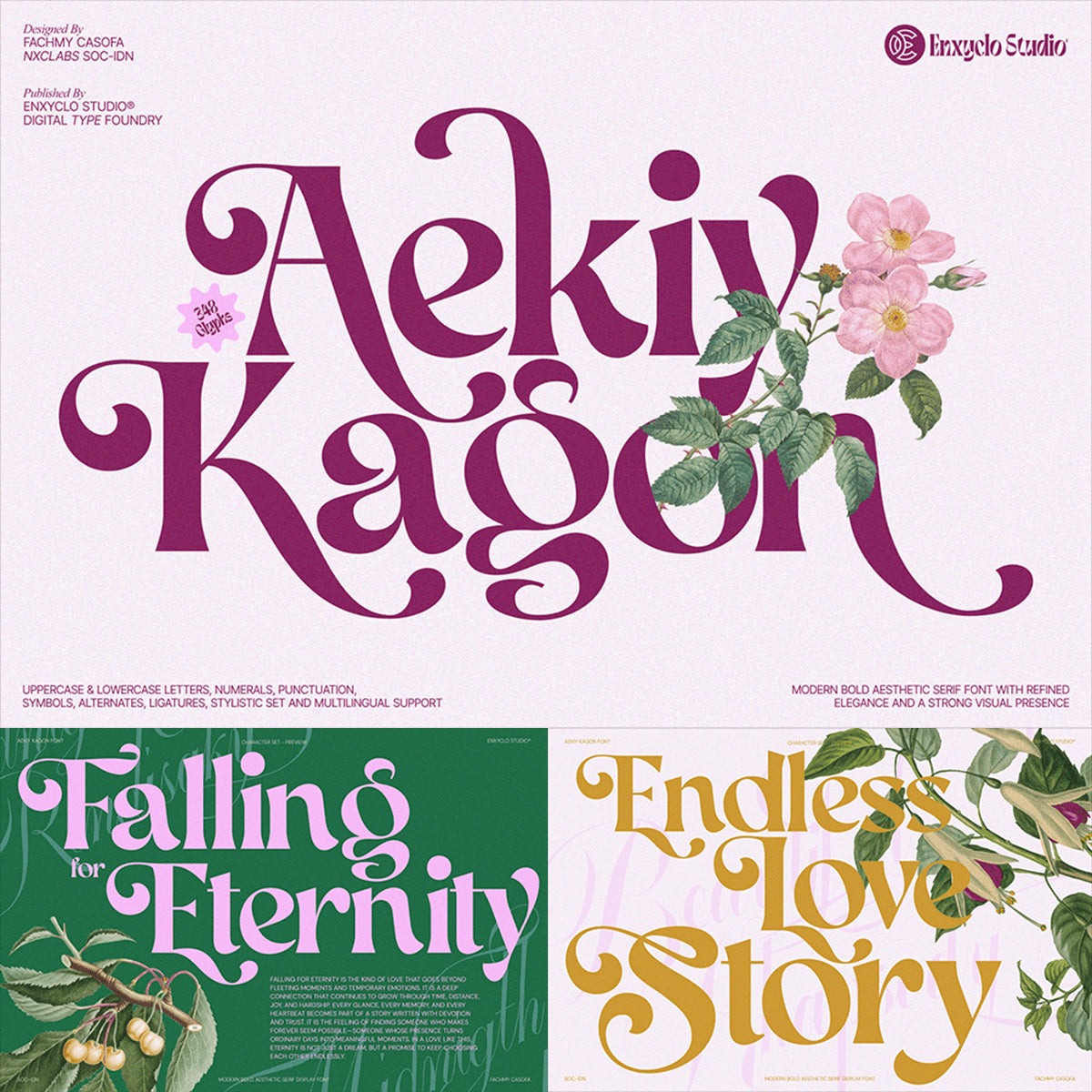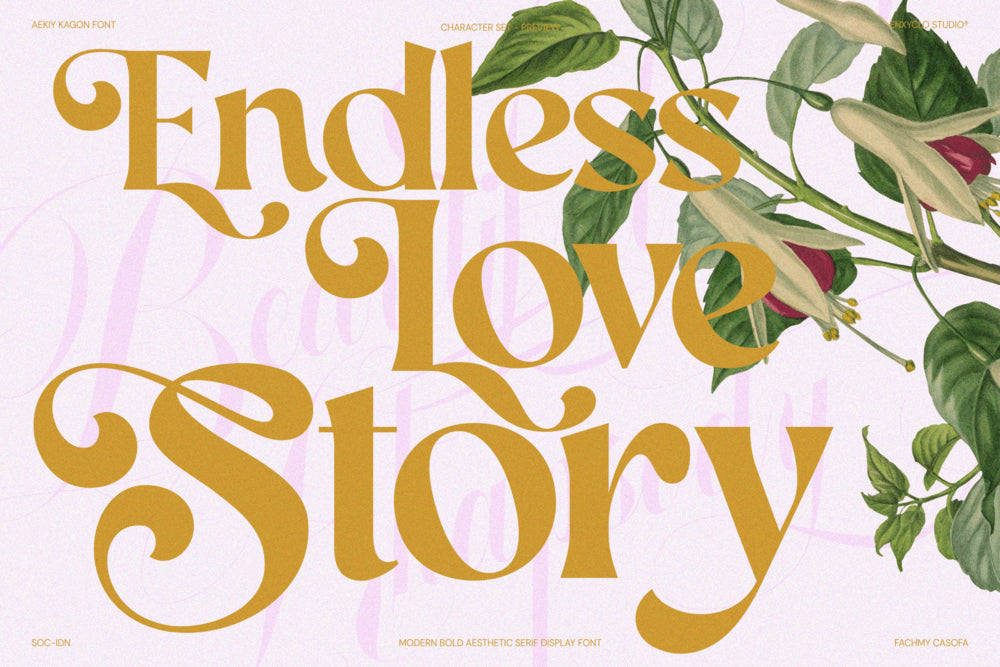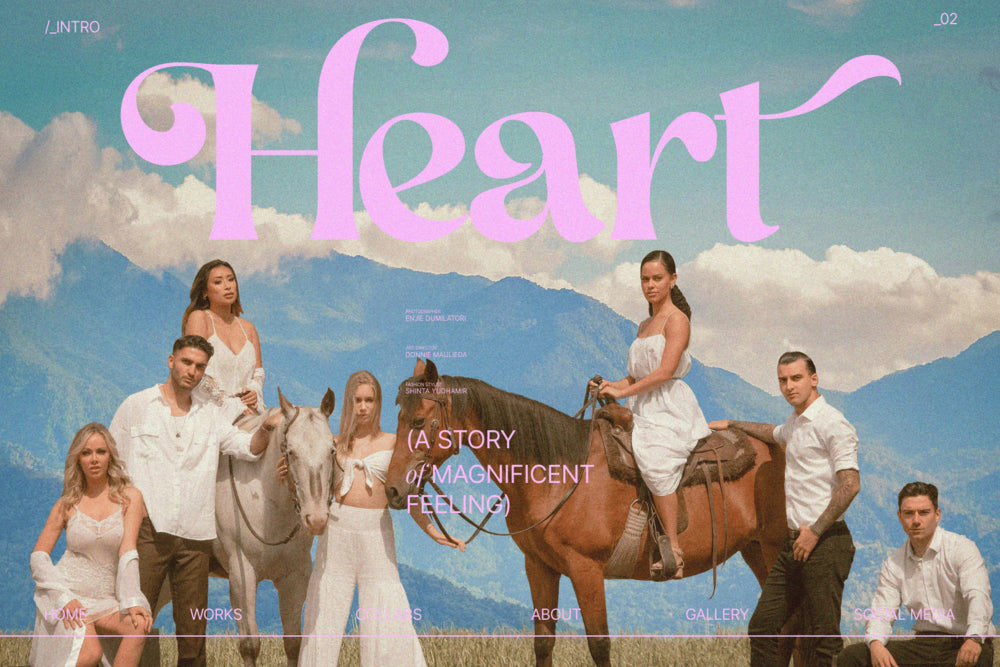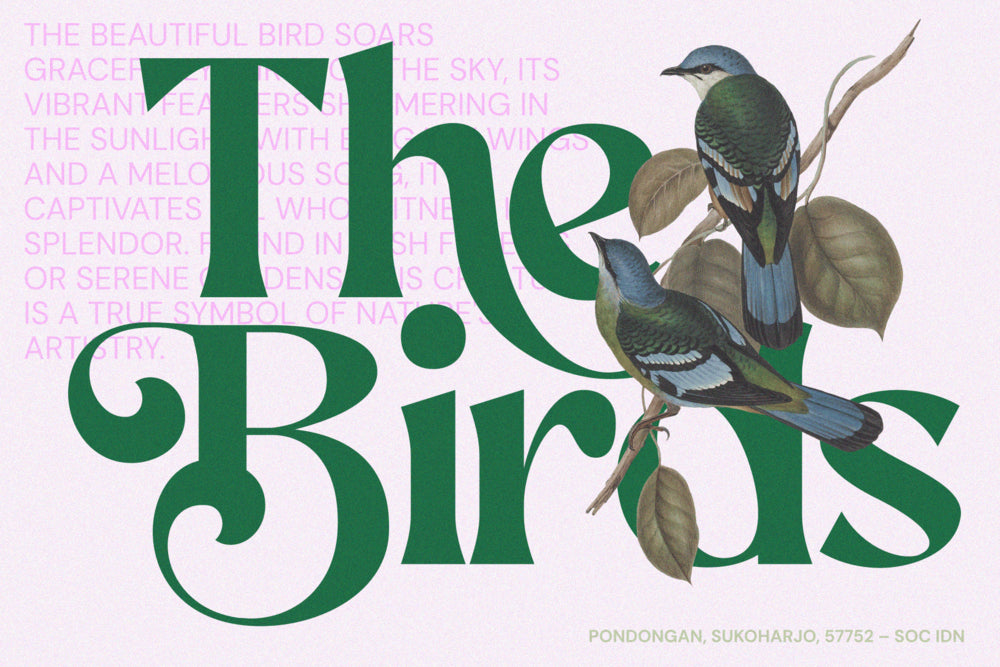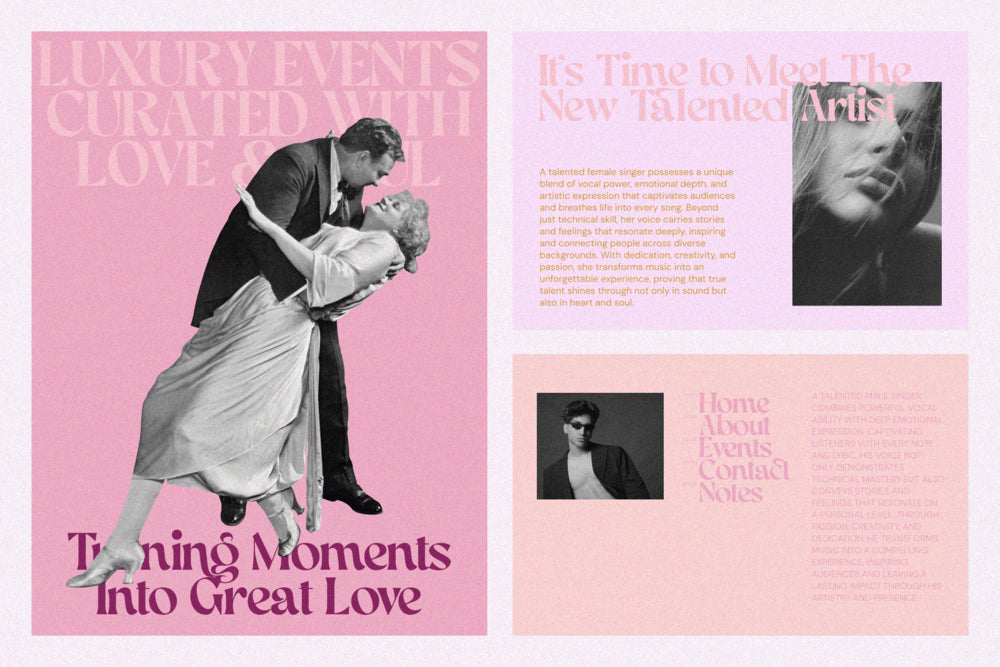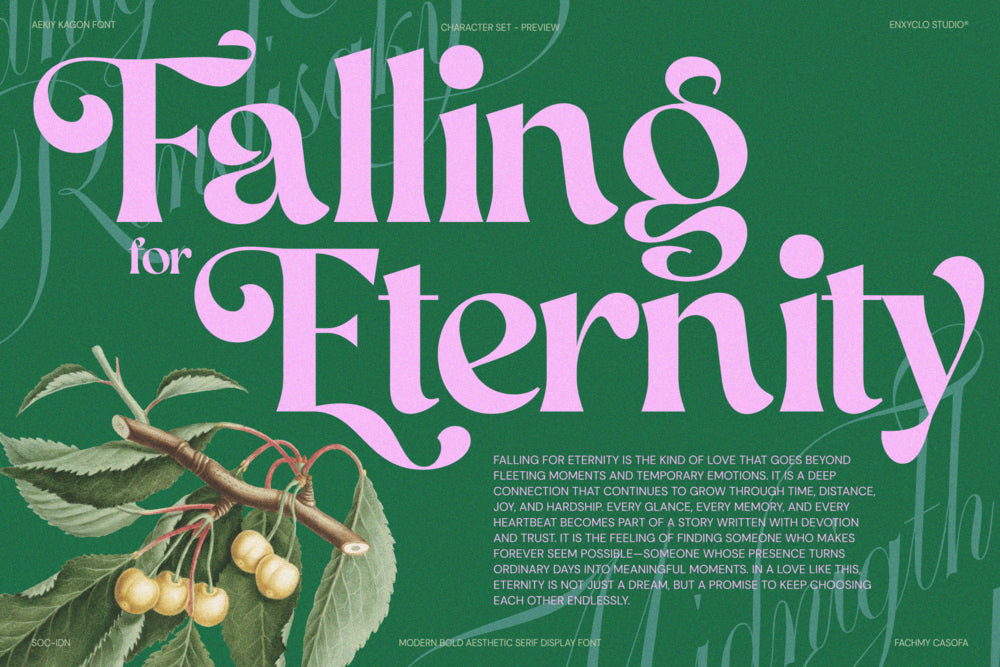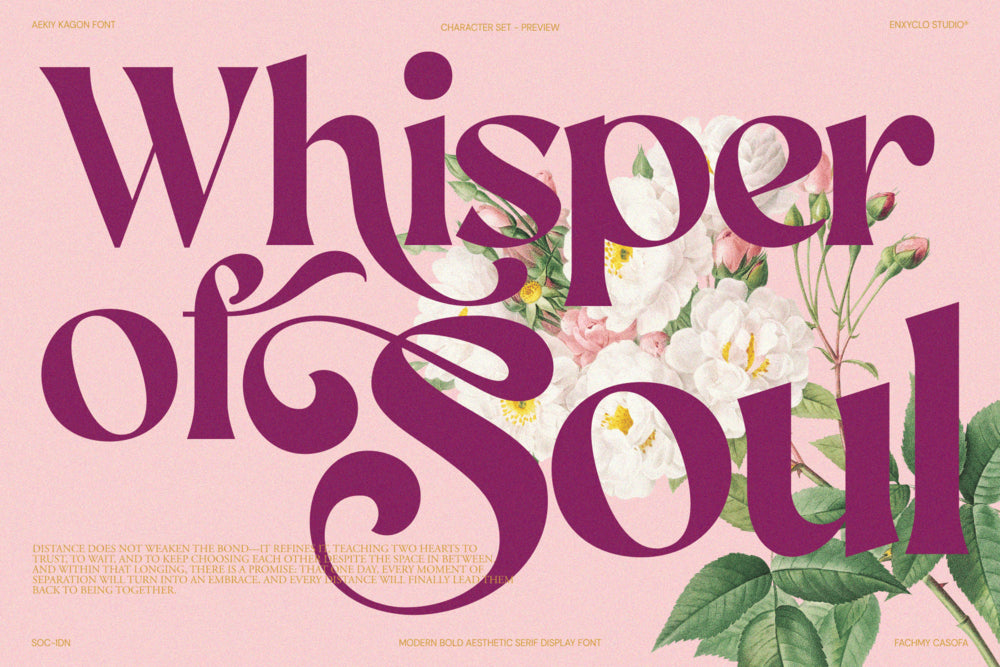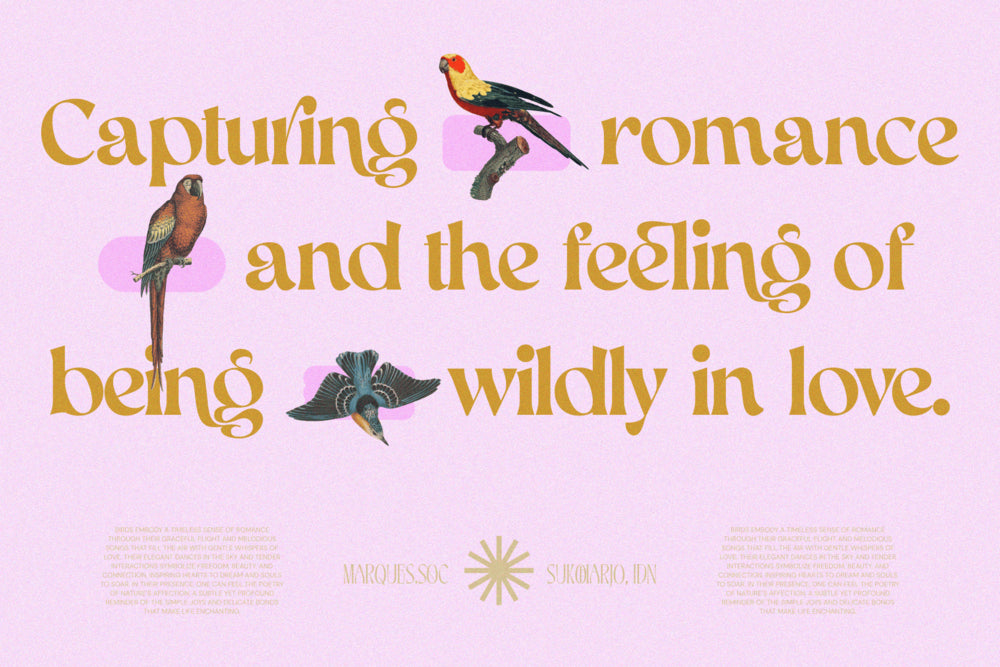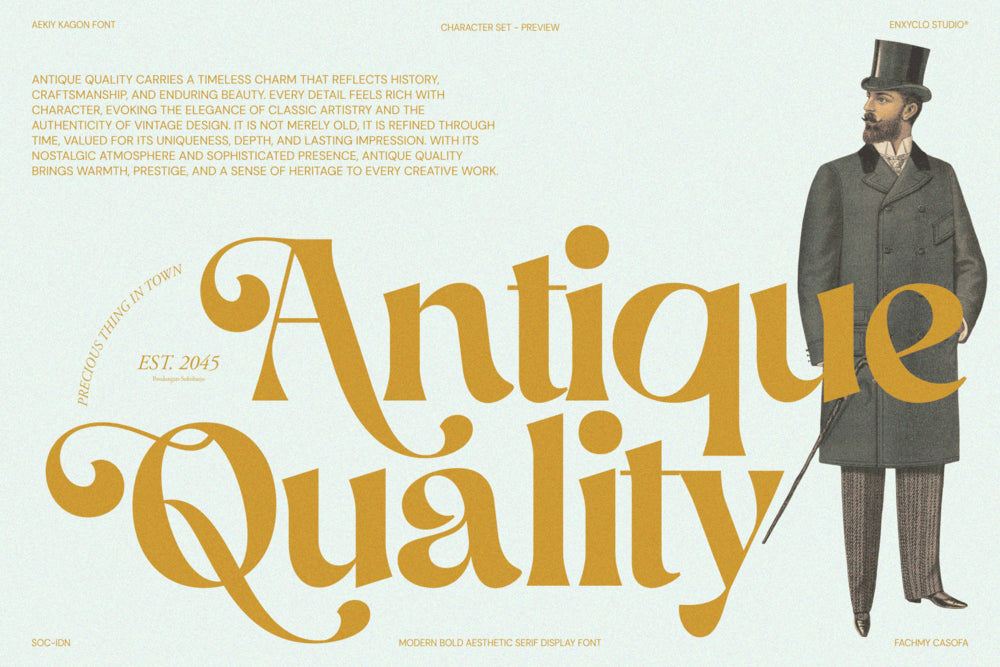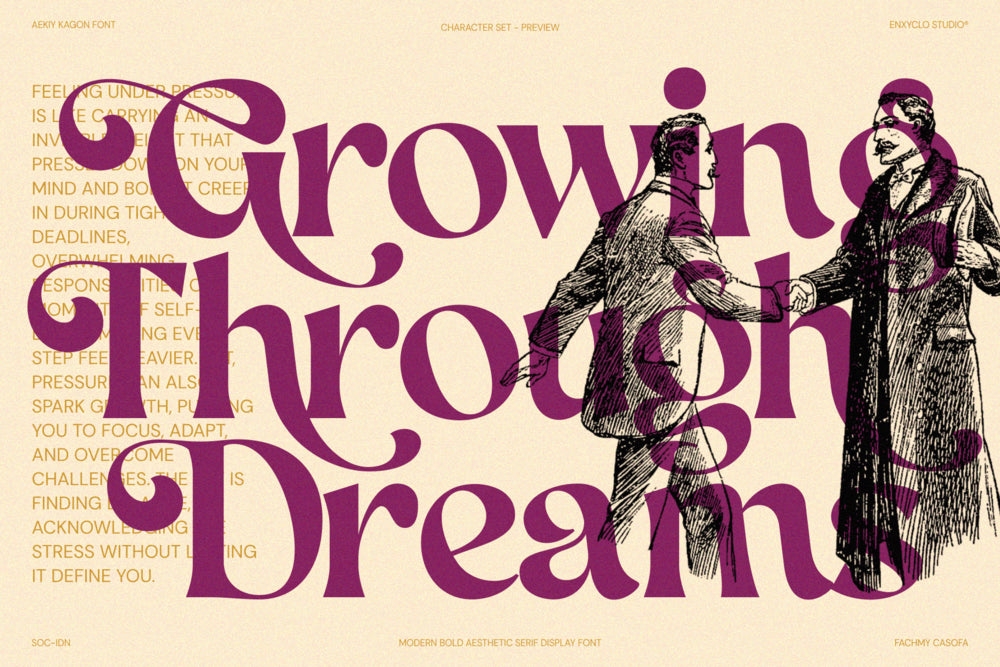
AEKIY KAGON — Elegant Luxury Bold Serif Classic Font
AEKIY KAGON is a timeless modern serif font that blends bold elegance, luxurious aesthetics, and contemporary sophistication into one striking typeface. Designed with refined serif details and graceful swash elements, this font delivers a lavish and premium visual presence that feels both fashionable and unforgettable.
Crafted for modern creatives and high-end brands, AEKIY KAGON combines clean structure, artistic ligatures, and expressive curves to create a perfect balance between minimal elegance and bold personality. Every letterform is thoughtfully shaped to enhance readability while maintaining a rich, aesthetic character—making it ideal for luxury logos, fashion branding, boutique identities, cosmetic packaging, and premium skincare visuals.
• Uppercase & Lowercase Letters
• Numeral, Punctuation Marks, Currencies & Symbol Set
• Alternate, Stylistic Set & Ligature
AEKIY KAGON is a modern serif font that features bold elegance and luxurious aesthetics, designed with refined serif details and graceful swash elements. It includes uppercase and lowercase letters, numerals, punctuation marks, currencies, a symbol set, alternate stylistic sets, ligatures, and multilingual support, available in OTF, TTF, and WOFF formats.